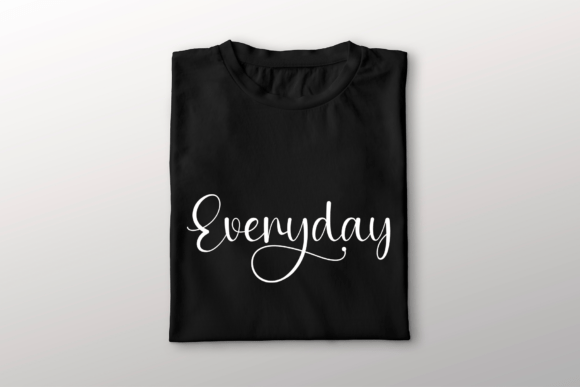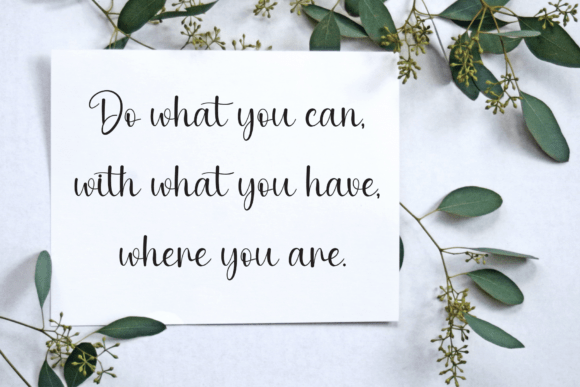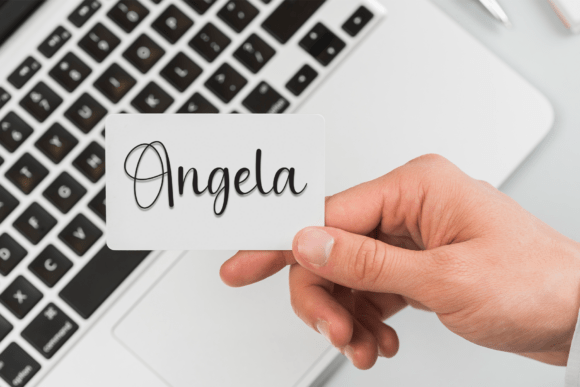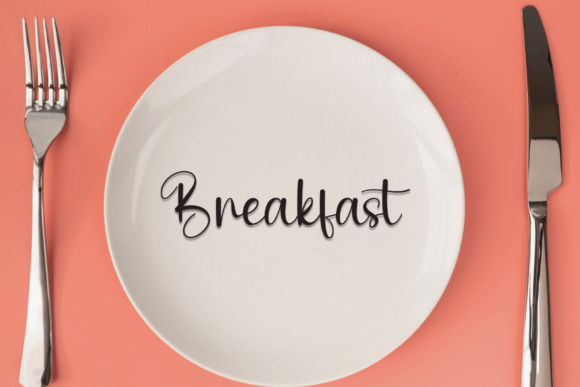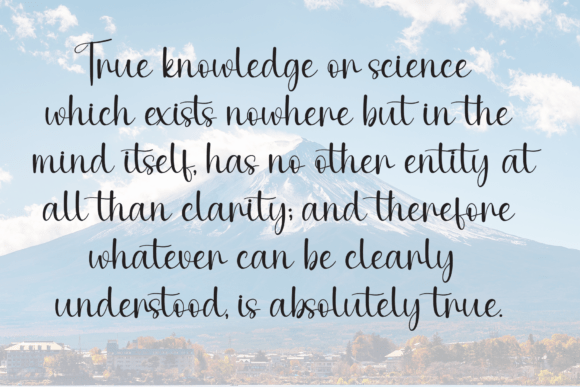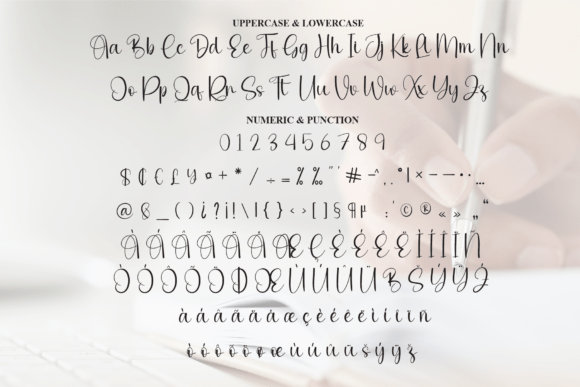
Unleashing the Art of Elegant Typography
There’s something special about the moment when a design comes together – the way the colors align, the shapes flow, and the typography whispers the perfect message. For designers, this feeling is the ultimate reward. And it’s exactly what you’ll experience when you work with the Autography Font, a script font that exudes effortless beauty and sophistication.
With its elegant curves and smooth connections, Autography Font is the perfect addition to any design project. Whether you’re crafting wedding invitations, logos, branding materials, or social media graphics, this font brings a timeless charm that’s hard to resist. As a designer, you’ll appreciate the value of Autography Font in elevating your work to the next level, making it a valuable addition to your typography arsenal.
Autography Font Key Features
- Font Style: Script, Calligraphy, and Decorative font styles available in various weights and widths.
- Unique Characteristics: Hand-drawn, brush-like strokes, and subtle texture, giving it a unique, artistic feel.
Autography Font Review
Autography Font is a beautiful script font that I’ve had the pleasure of working with. Here’s my honest take on its strengths and weaknesses.
- Elegant and refined aesthetic: Autography Font has a unique, hand-written feel that’s perfect for creative projects, invitations, and social media graphics.
- Versatile: It’s suitable for both digital and print applications, making it a great addition to any designer’s font collection.
- Excellent legibility: The font’s letterforms are well-designed, ensuring that text remains clear and easy to read even at smaller sizes.
- Limited font sizes: While the font is beautiful at larger sizes, it can become quite pixelated at smaller font sizes, which may require some adjustments.
- Not suitable for large blocks of text: Autography Font is best used for short paragraphs or headings, as it can become overwhelming when used extensively.
Autography Font is a stunning script font that adds a touch of elegance to any design. While it may have some limitations, its unique aesthetic and versatility make it a great choice for creative projects. With some careful use, it can elevate your designs to the next level.
Tips for Getting the Most Out of Autography Font
For the best results, use the Autography font in conjunction with a bold or italic style to create a unique and eye-catching effect. Experiment with different font sizes and colors to add emphasis to your text.
The Autography font is ideal for creating personalized and customized text for invitations, social media graphics, and branding materials. It can also be used to add a touch of elegance to wedding invitations, birthday cards, and other special occasion designs.